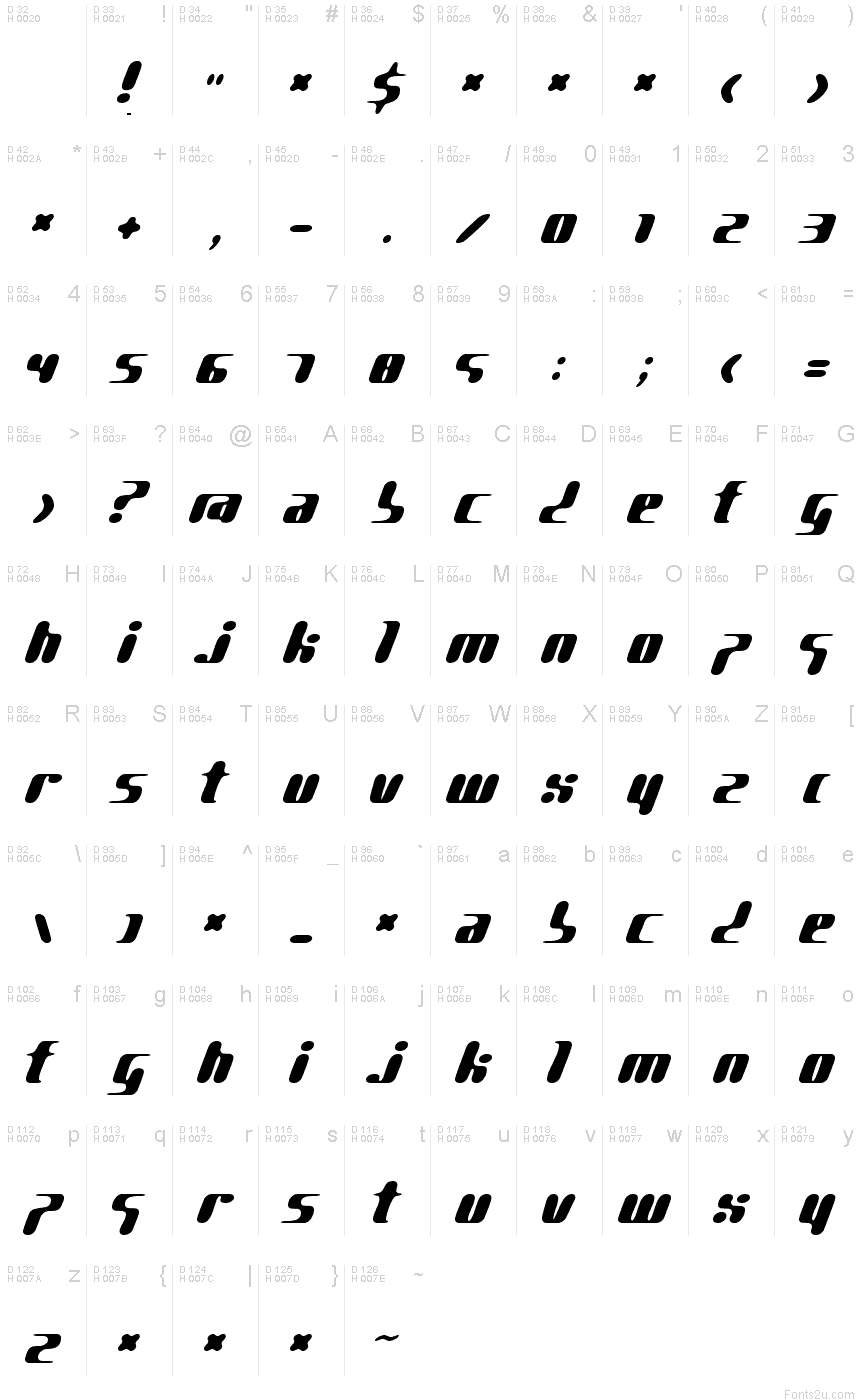
pg GENE
PG Gene is a free futuristic display font, with a soft sci-fi slant and a smooth, molded silhouette. The letters feel fast and synthetic, built from thick rounded strokes, deep curves, and clipped notches that give the alphabet a streamlined, almost vehicle-badge rhythm.
It suits poster headlines, music packaging, gaming graphics, title cards, and tech event branding where a free font can carry a retro-future mood without turning cold. Because the forms are so sculpted and connected in spirit, it also works well for short logos or cover lines that need motion and a slightly space-age glow.